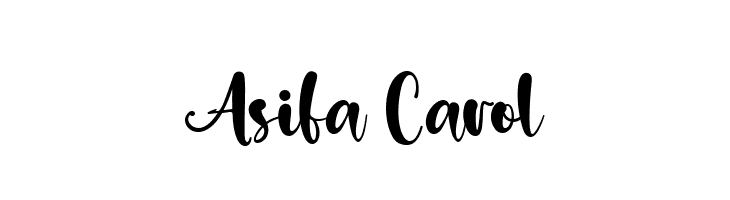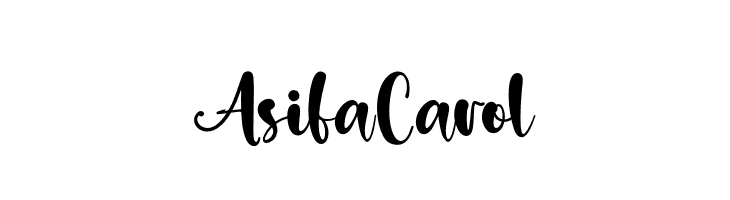
An artistic script font with flowing, interconnected letters and decorative flourishes.
A dynamic, cursive script font with a natural, handwritten style.